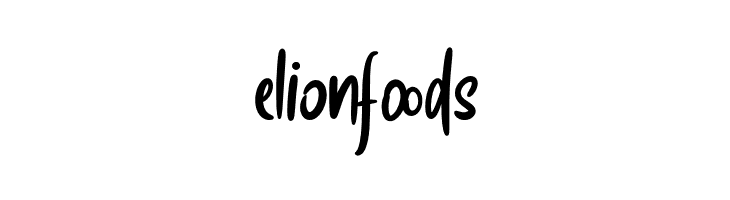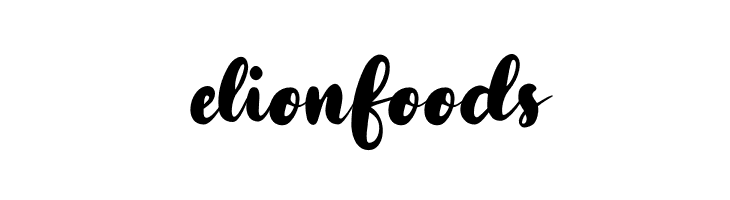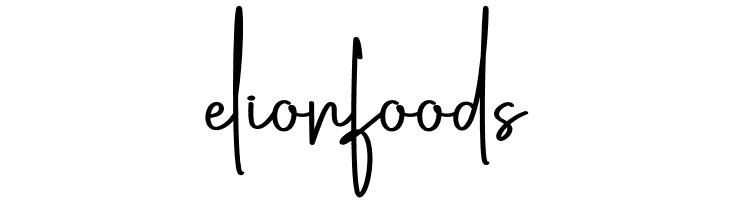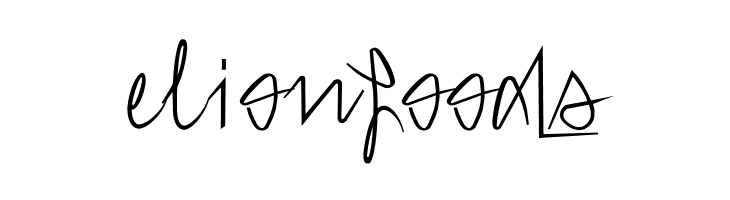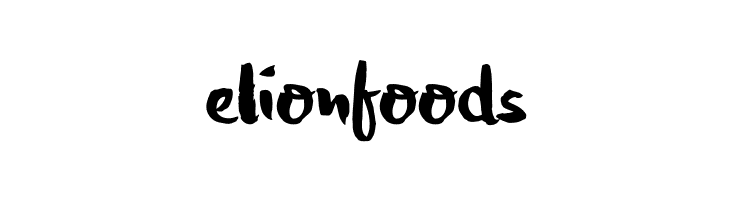
Thin, handwritten sans-serif font with a casual style.
Tall, narrow, handwritten script with playful, casual strokes.
A playful, handwritten font with tall, narrow letters and a slight slant.
A cursive, handwritten font with a fluid and elegant style.
An elegant and flowing script font with delicate, graceful strokes.
A playful, cursive font with artistic, handwritten characteristics.
A sophisticated, elegant handwritten font with fluid, continuous strokes.
A playful, handwritten font with bold, rounded strokes and a casual style.